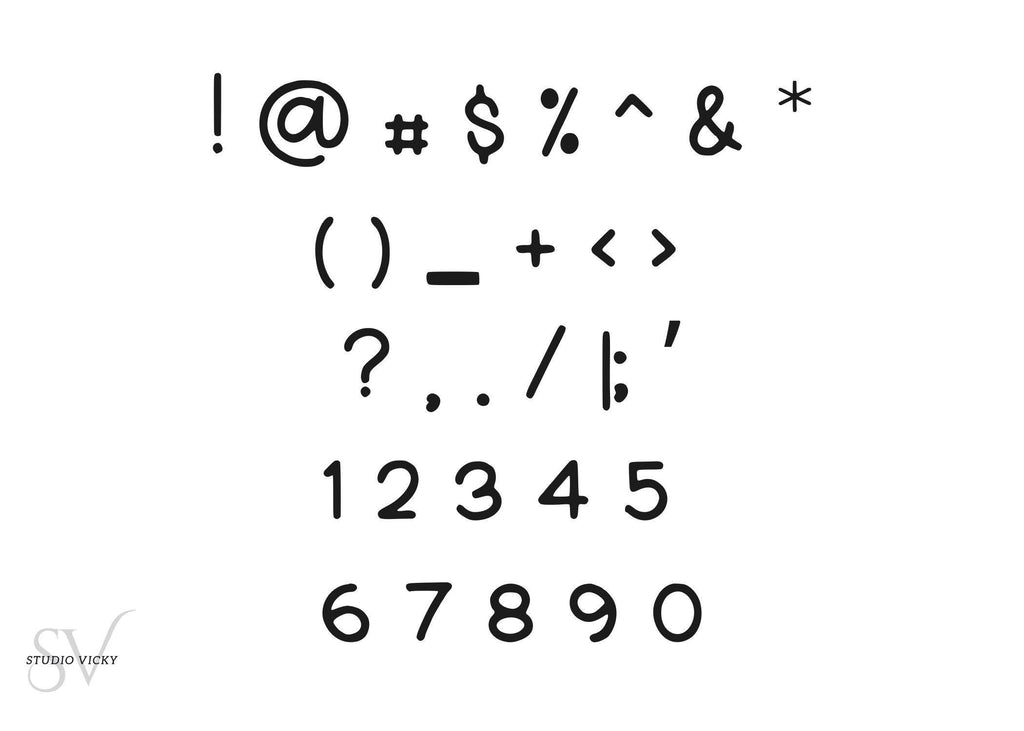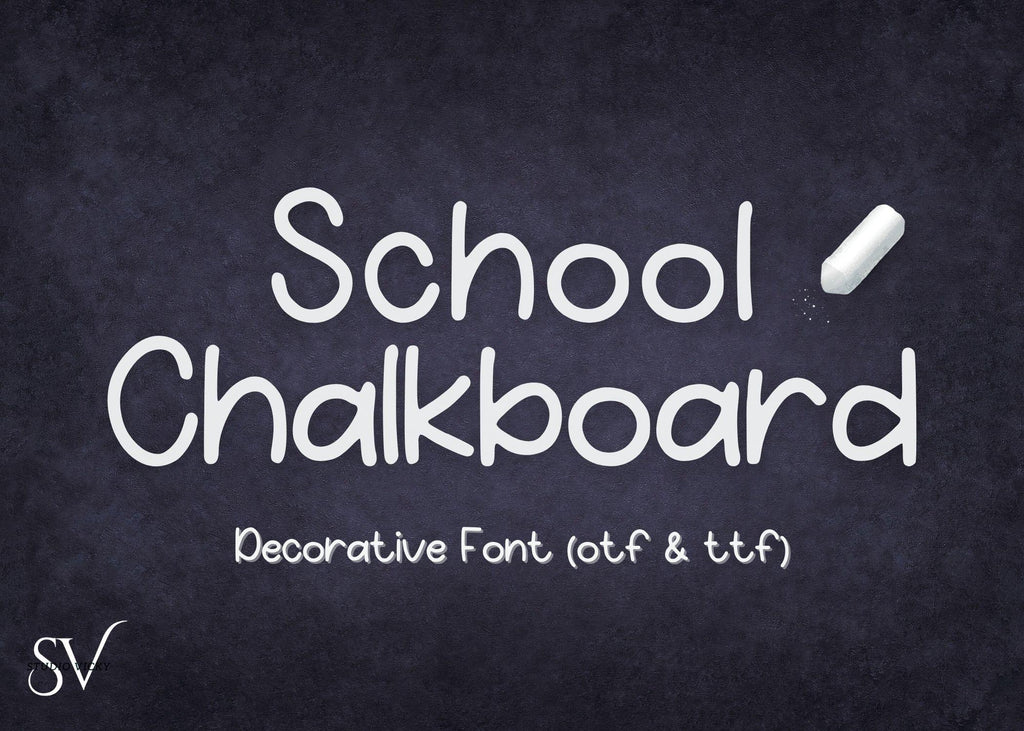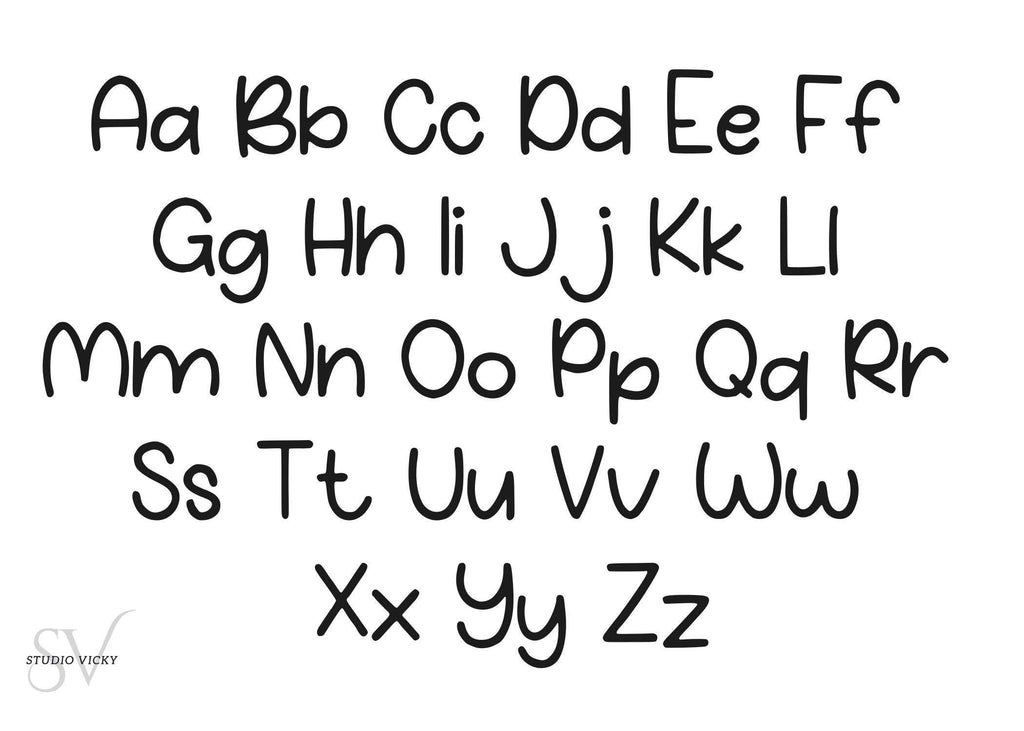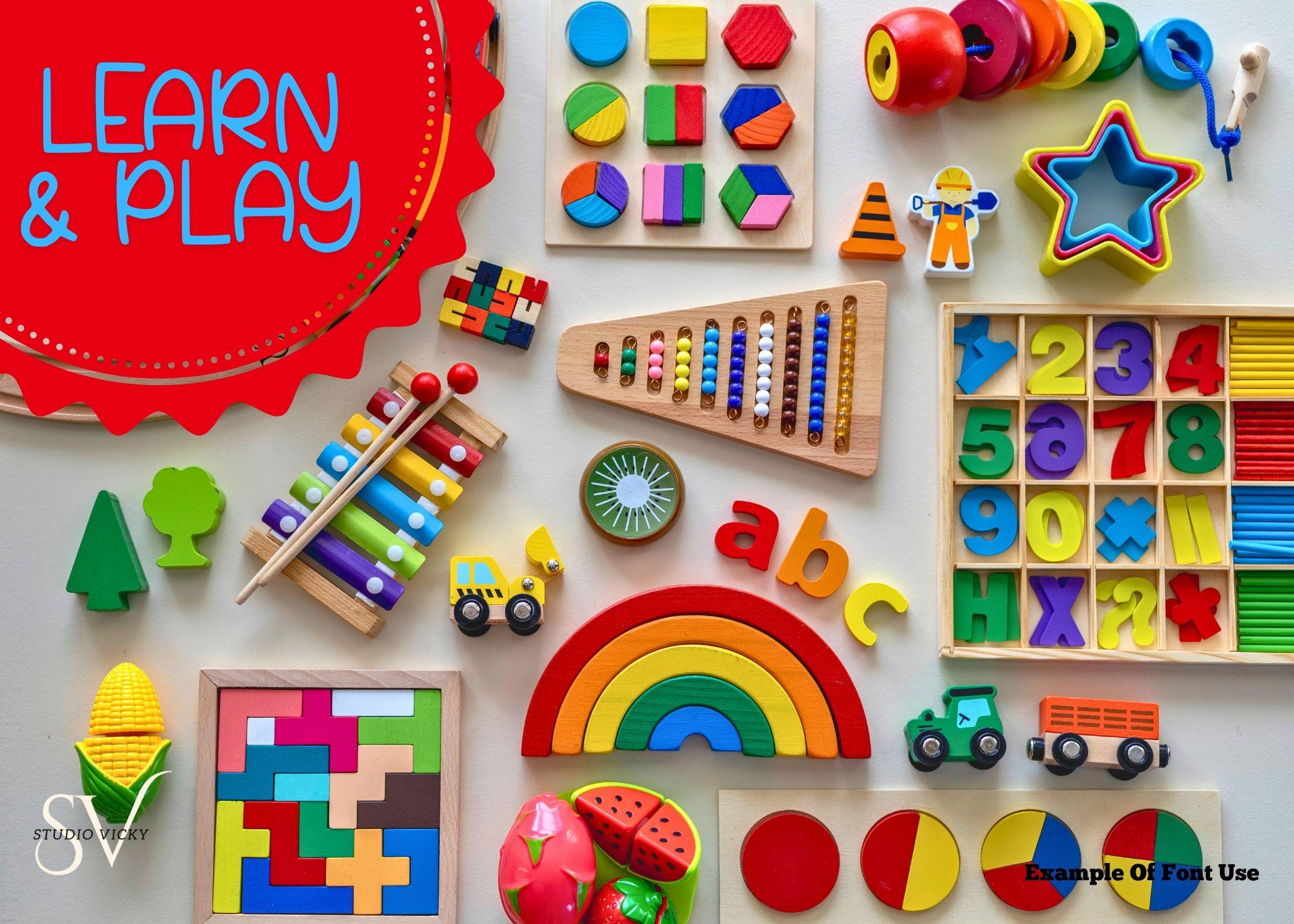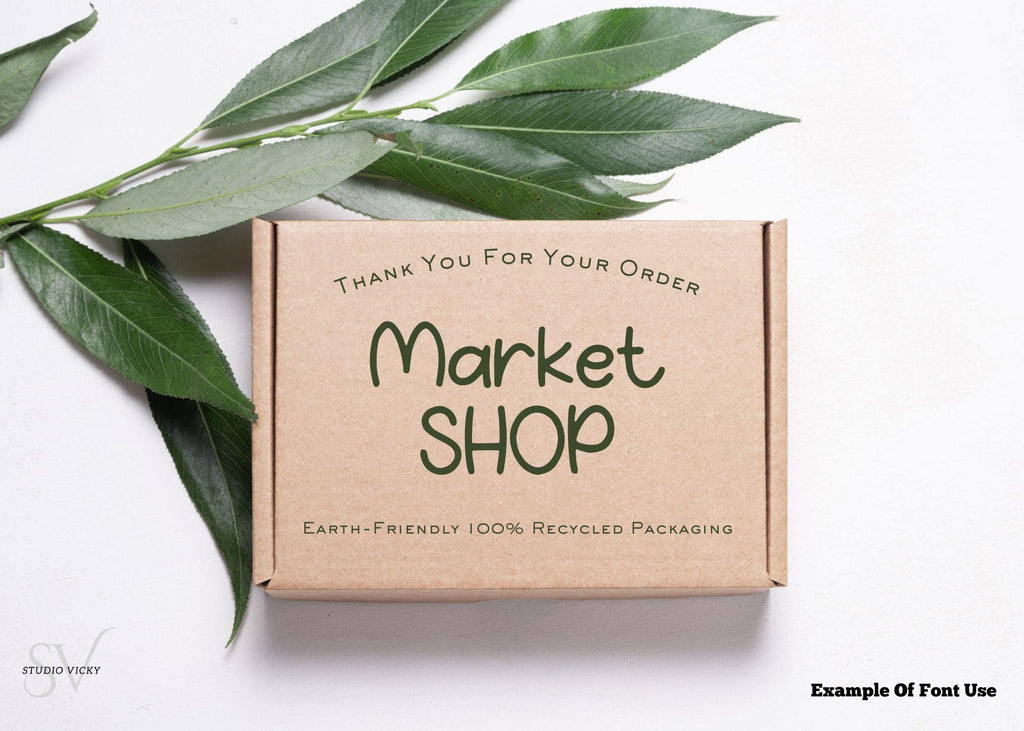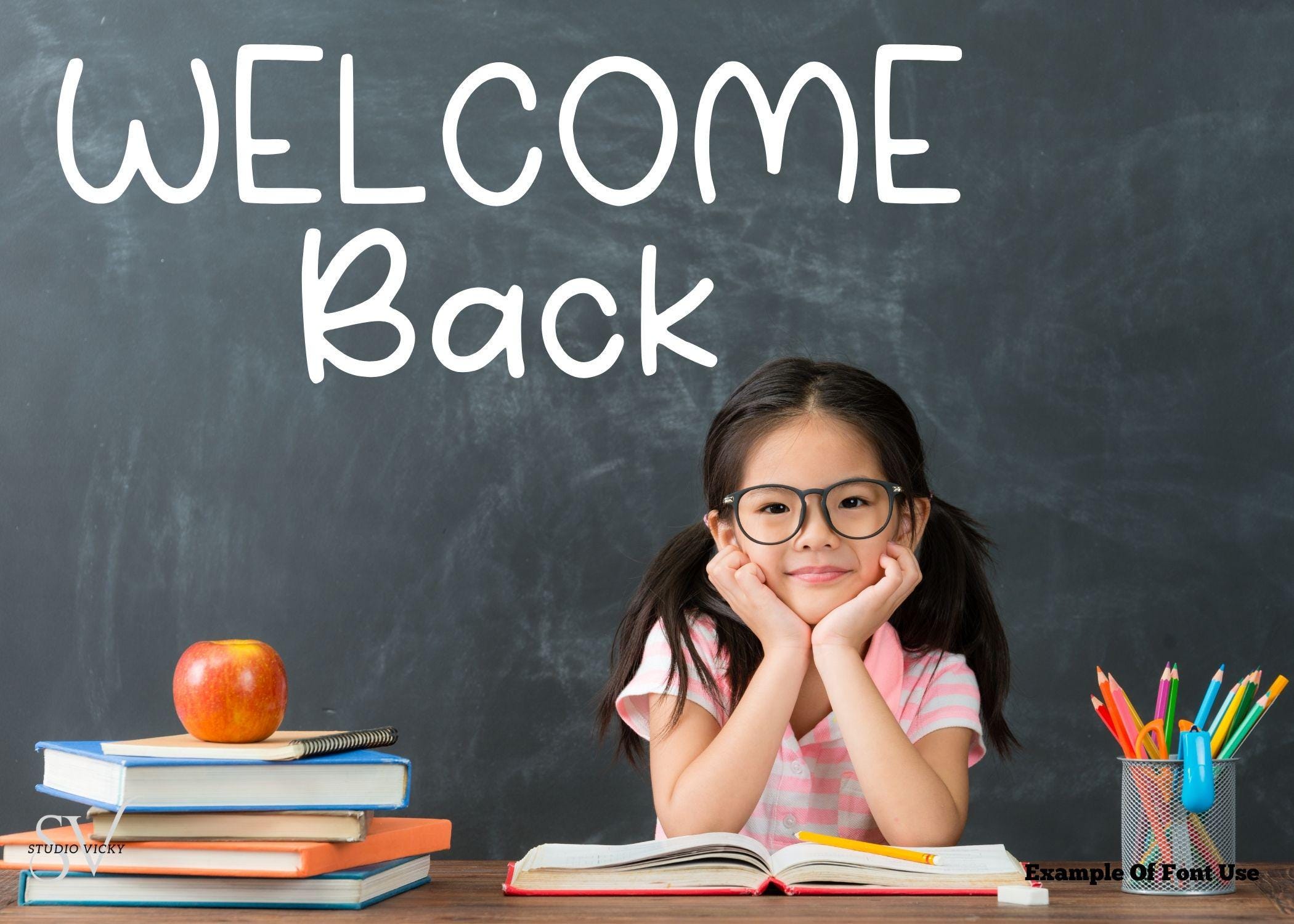
School Chalkboard Font, Decorative Bubble Style (OTF & TTF)
School Chalkboard Font Bundle
A decorative font for makers and designers.
This versatile font bundle is ideal for quotes, branding, t-shirts, mugs, websites, blogs, logos, social media, invitations, and more. Perfect for designers and creatives!